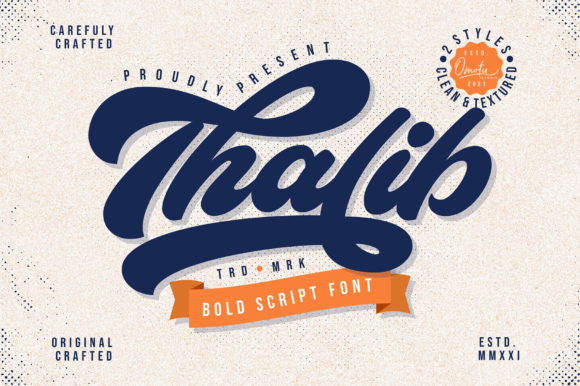
Unleash the captivating charm of Thalib – a resplendent script font that exudes a retro elegance, ready to transport your designs to a bygone era. With its bold strokes and dynamic curves, Thalib commands attention and imbues your creations with a sense of nostalgia and timeless allure.
Thalib's confident and charismatic persona shines through in every letter, making it an ideal choice for headlines that demand impact and logotype projects that yearn for distinction. Its PUA encoding ensures effortless access to a treasure trove of glyphs and swashes, empowering you to add intricate details and flourishes that elevate your designs to new heights.
Thalib's versatility extends beyond its striking aesthetics. Its inherent strength and legibility make it a versatile performer, seamlessly adapting to a diverse range of applications. From enchanting event flyers that evoke a sense of anticipation to eye-catching posters that command attention from afar, Thalib effortlessly captivates audiences and leaves a lasting impression.
But Thalib's allure goes beyond mere aesthetics. It's a font that speaks to the soul, evoking emotions and sparking imaginations. Its bold strokes convey a sense of power and confidence, while its flowing curves create a touch of elegance and grace. Whether you're crafting designs for a special occasion, a personal project, or a commercial endeavor, Thalib has the power to transform words into art and messages into masterpieces.
So, embark on a creative journey with Thalib, the font that encapsulates the essence of retro charm and modern sophistication. Let its bold presence and undeniable charisma elevate your designs and captivate audiences, leaving them spellbound and eager for more.